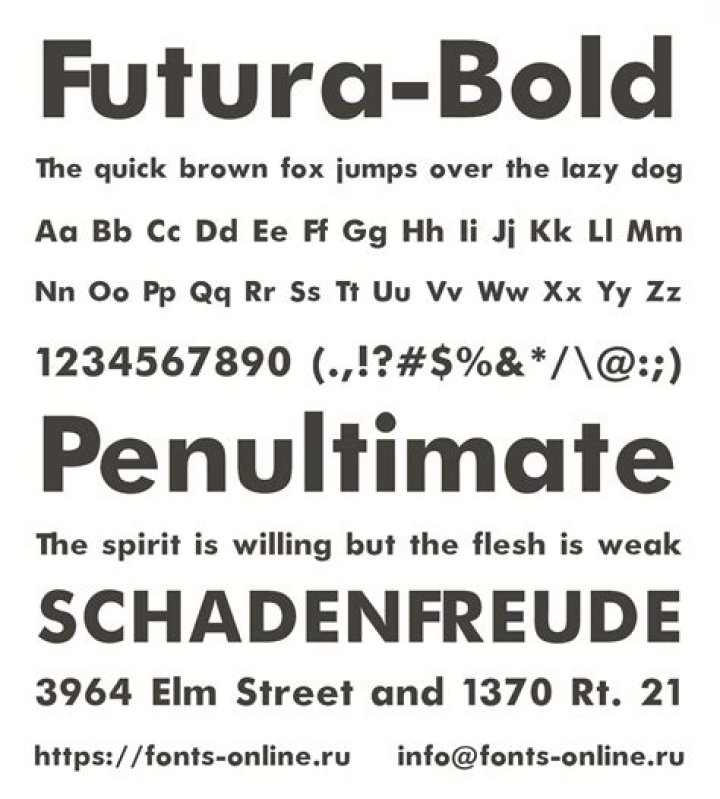
Futura. Futura is a crisp geometric sans-serif typeface that's great for headlines. Like many great fonts it isn't free, but there are some great free Web font alternatives to Futura that just might work for your next Web design.
Ironically, given its generic past, Futura is the only typeface to have been granted registration under copyright as an original work of art, and, further irony, given the key part played by the Bauer letter design office, the full copyright belongs to Renner and his heirs.
What free font is like Futura?
The free Spartan is a good – though italics-less – similar font to Futura. Spartan has been a bit touched-up from the original Futura for the purposes of readability.
Designed by Paul Renner, Futura has an ancient form and is the full-fledged prototype of the 20th century Geometric Sans Serif. Nunito is a Google font similar to Futura. It's a Sans Serif typeface available in 2 versions.What happened Futura font?
In October 2020, Monotype re-digitized and released as Futura Now, which is based on Paul Renner's original design with additional 102 styles.Is Futura available as a web font?
Futura. This strong web font is thicker in body, but its sharp points are very slick and pretty. It gives off an air of assertiveness and style.Why Futura is the best font?
Futura is distinctive for its long ascenders and almost classical Roman capitals — these elements give it its stylish elegance and differentiate it from other geometric san-serifs. Futura can be used as a display and paragraph font and is seen in many notable and historic projects.Is Futura good for body copy?
Large ascenders and a low x-height are characteristic for Futura. The large ascender-height and the obvious low x-height, give Futura a very elegant look. This makes her predestinated for use in headlines, quotes, and mid-sized body copy.Can I use Futura for my logo?
Supreme Font is → Futura.Can we use Google fonts for commercial use?
Futura is used for the 'Louis Vuitton' wordmark and text, creating a nice visual balance with the two typefaces offseting each other.Can I use Helvetica font commercially?
In 50 years, it is possible that the only version of Futura anyone will remember will be a free version on GitHub or Google Fonts. (Appropriately enough, the only open-source Futura is named after its major American copy: Spartan.)What is a good bold font?
What is a bold font?
A set of type characters that are darker and heavier than normal. A bold font implies that each character was originally designed with a heavier appearance rather than created on the fly from a normal character. See boldface attribute.What font has heart swash?